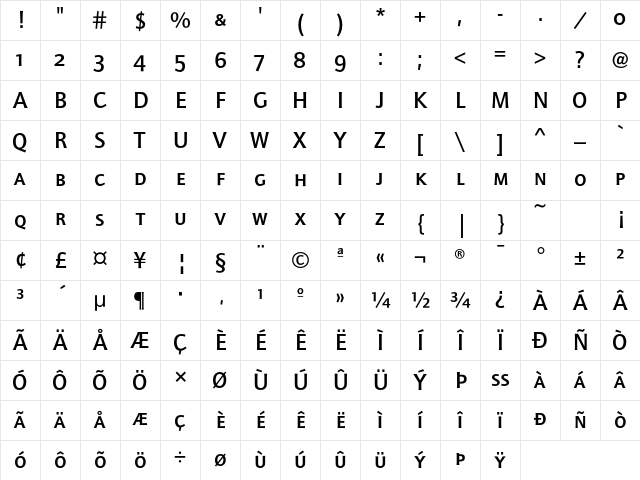
QuaySansEF MediumSC
Style: MediumSC
Complete QuaySansEF MediumSC glyph index. Displaying only characters natively supported by QuaySansEF MediumSC font.
Design Context for QuaySansEF
QuaySansEF is a composed and adaptable typeface that performs quietly and consistently across a wide range of design contexts.